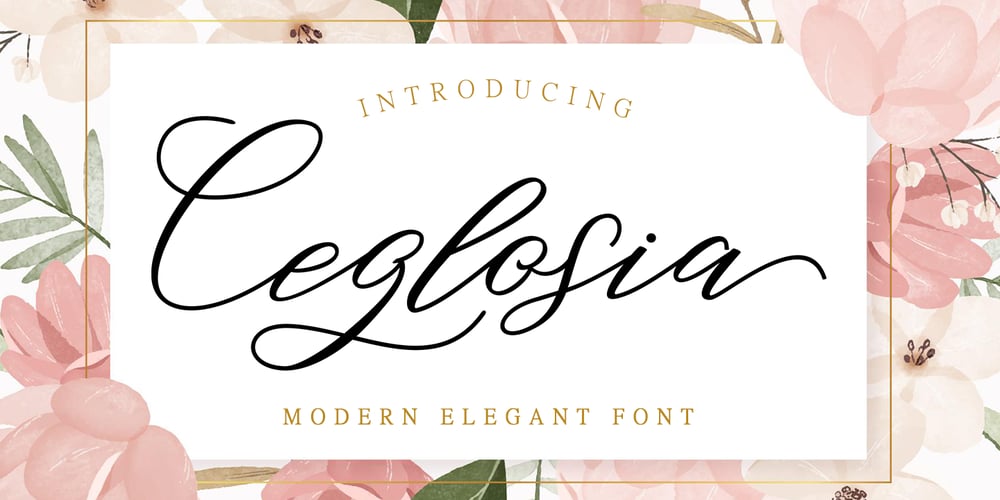
Ceglosia Font Family was designed by Rizki Agam Fonna and published by RCKY Studio. Ceglosia contains 1 styles and family package options. Ceglosia is a modern calligraphy design, including Regular. This font is casual and beautiful with swash. Carefully designed to work together in harmony making it perfect for wedding favors, book covers, greeting cards, logos, branding, business cards and certificates, even for any design work that requires formal or extravagant.Ceglosia includes changes in OpenType stylistics, binding, and international support for most Western languages. To enable the OpenType Stylistic alternative, you need a program that supports OpenType features such as Adobe Illustrator CS, Adobe Indesign & CorelDraw X6-X7, Microsoft Word 2010 or later. How to access all alternative characters using Adobe Illustrator: